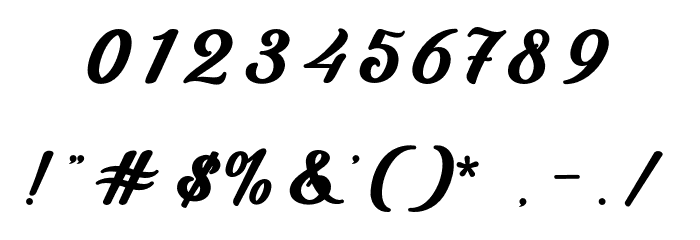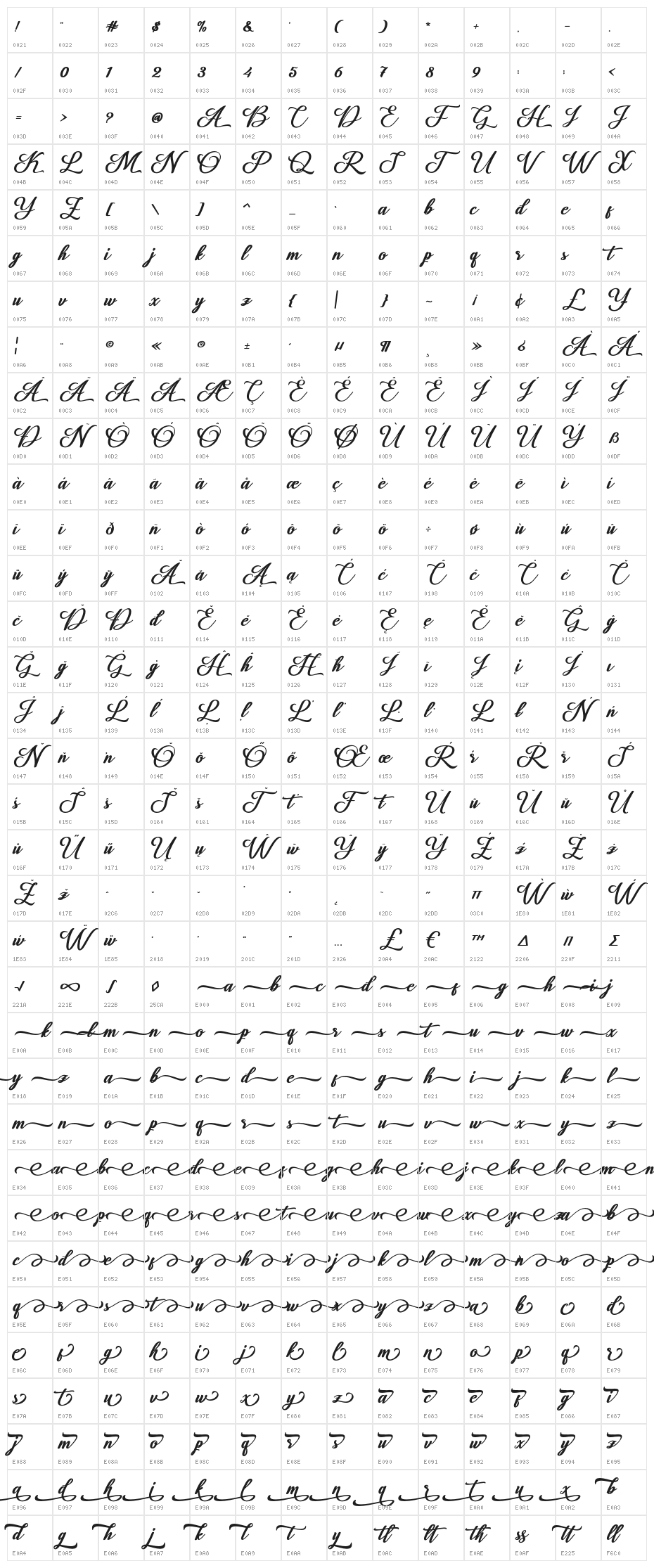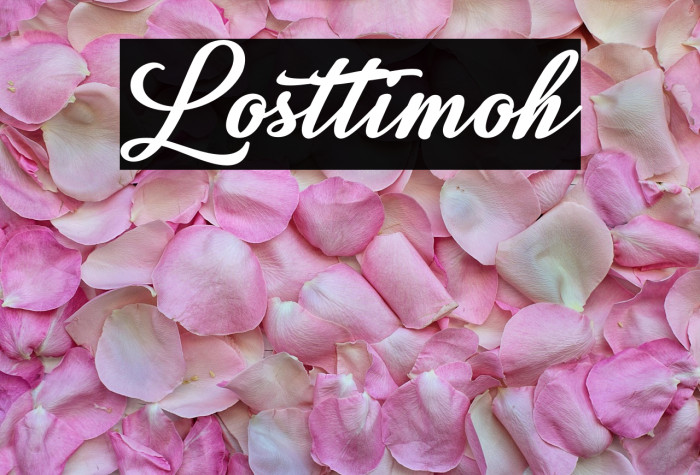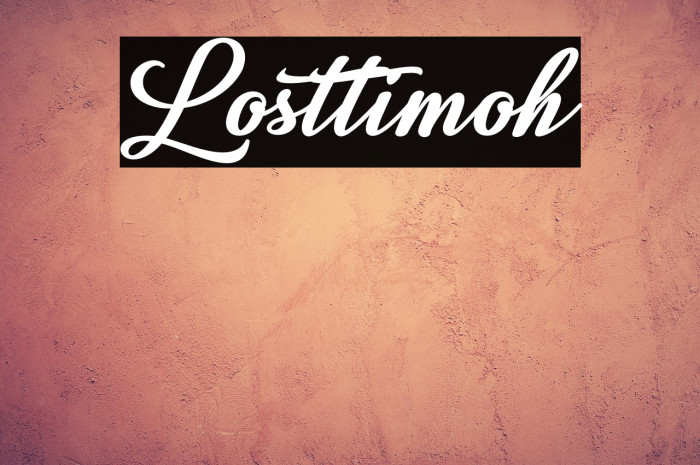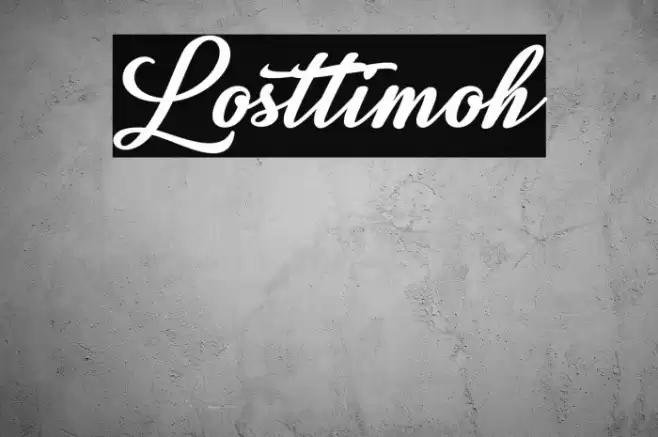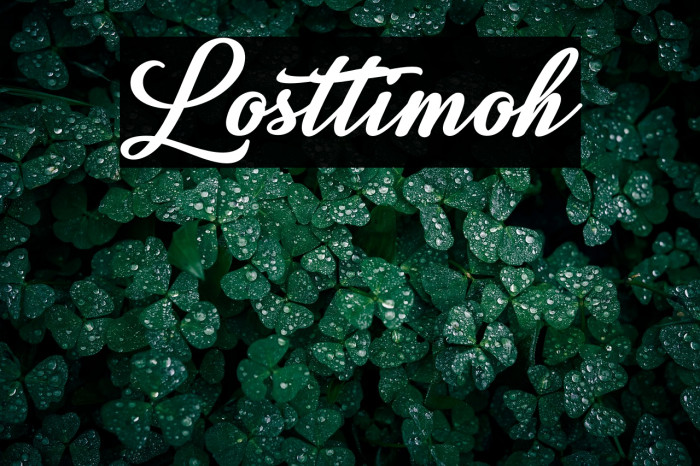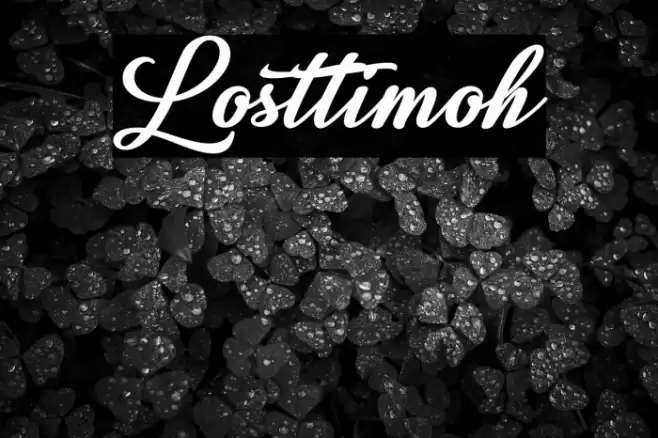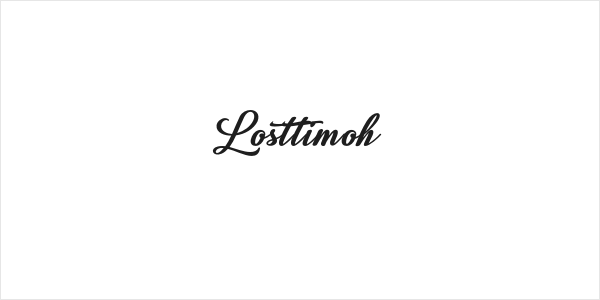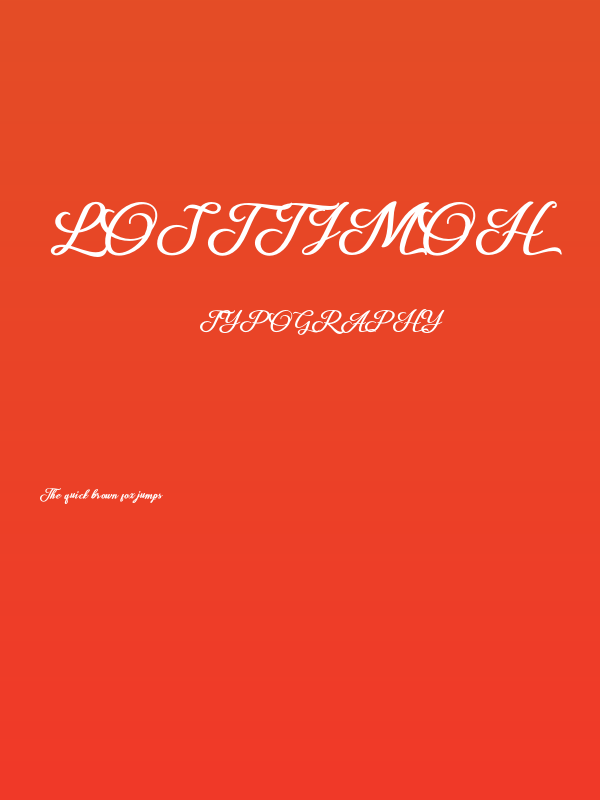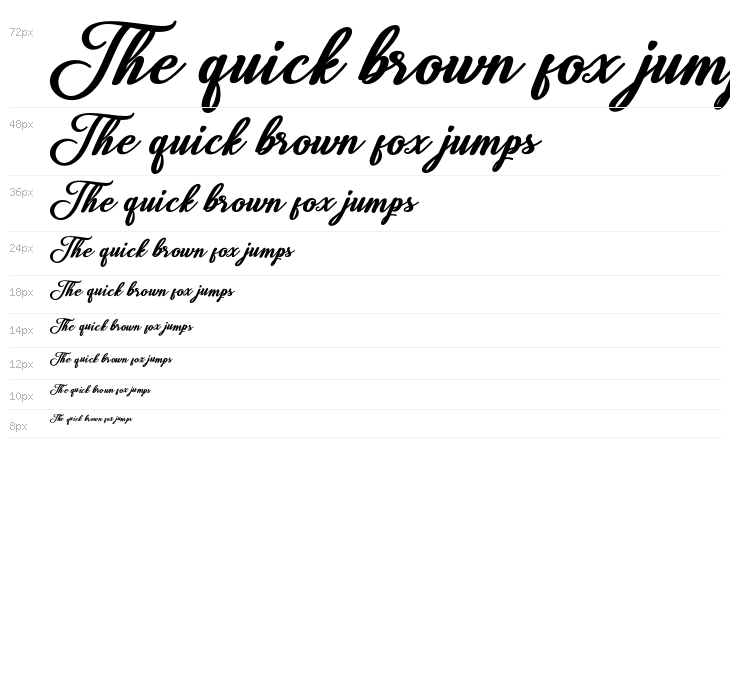
Losttimoh Font
Losttimoh Description
This font features a classic script style with elegant, flowing lines that mimic the fluidity of cursive handwriting. The uppercase letters are ornate and interconnected, providing a sense of sophistication and grace. The lowercase letters maintain a consistent style, with smooth curves and a slightly bold appearance, enhancing readability while retaining an artistic flair. Numbers and special characters are designed to match the overall aesthetic, ensuring a cohesive look across all text elements. The font's design is both timeless and versatile, making it suitable for a variety of applications where a touch of elegance is desired.
| Proposed Projects | Ideal for wedding invitations, elegant branding, greeting cards, and high-end product packaging. |